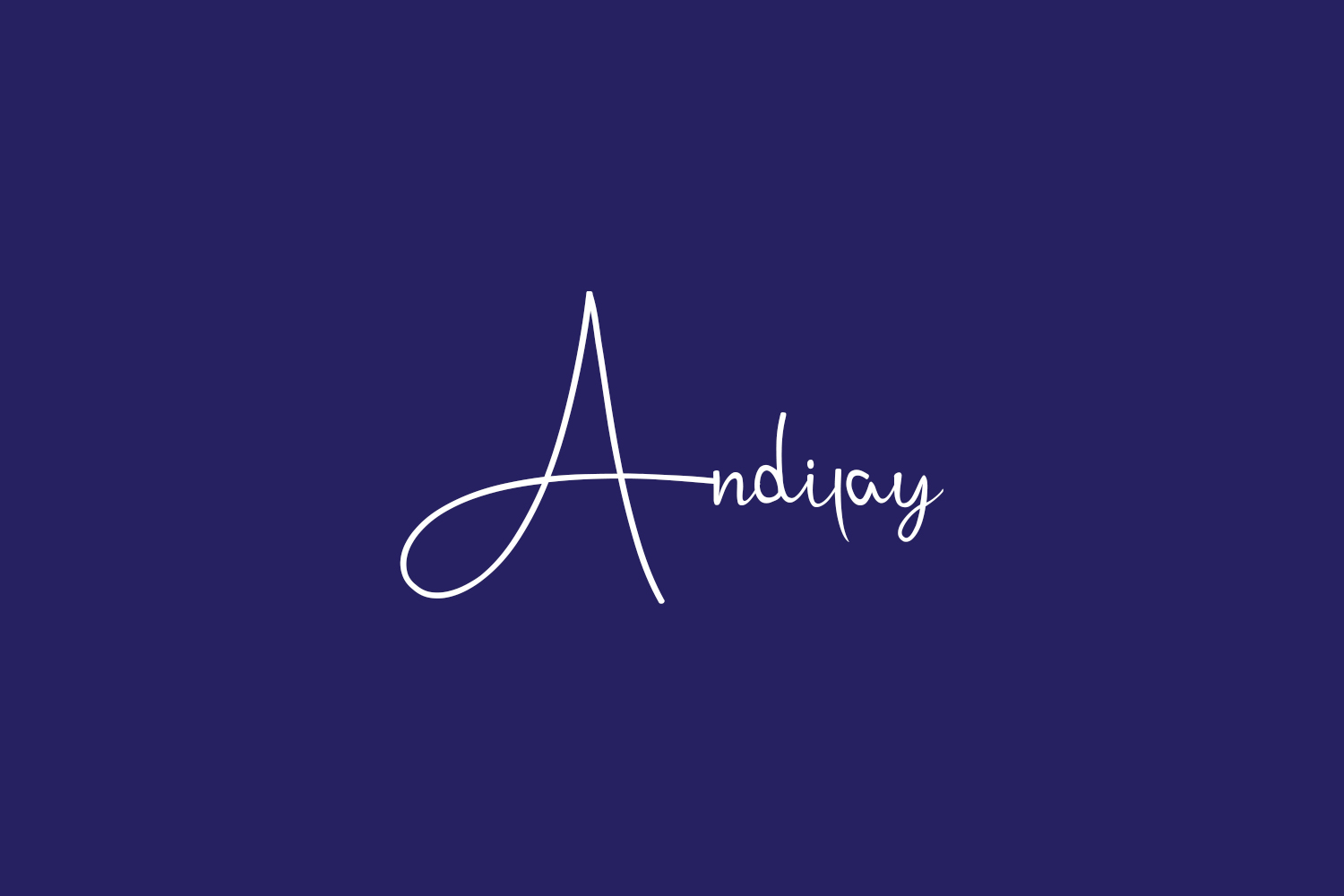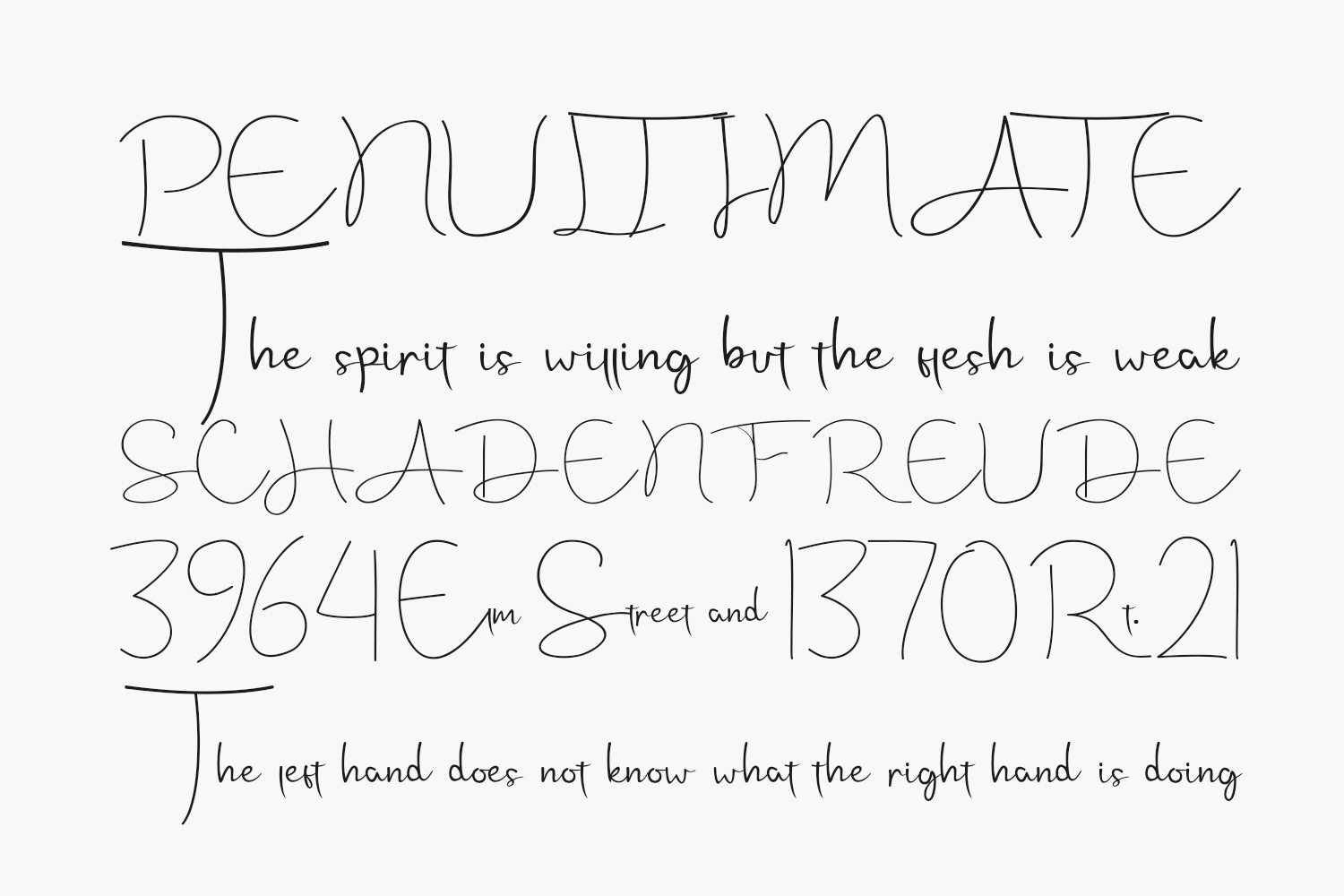
Andilay Free Font is a lovely and timeless handwritten font. It is the best choice for creating eye catching logos, branding, and quotes. Andilay Free Font was designed by Rezastudio and is free for personal use only. Please purchase the full version for commercial use.